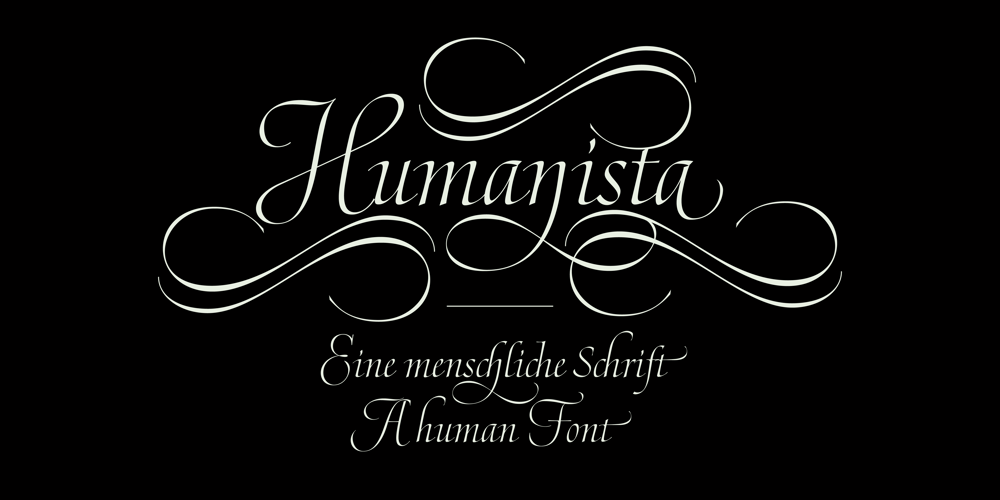
Humanista Font Family was designed by Bertram Kaiser and published by KaiserType. Humanista contains 2 styles and family package options. “Humanista” is the name of a multilingual chancery script font by Bertram Kaiser. The idea in this long-term project was to blend the boundaries between analogue calligraphic handwriting and designing a font digitally, while using all technical possibilities of modern type design. All glyphs were originally written with a broadnib and then carefully vectorized, creating a human charme inside the font. In this design you will find influences from great calligraphy masters like Hermann Zapf or Werner Schneider. The pro version comes along with a big variety of alternate glyphs, initial and terminal forms, swash capitals and ligatures, which gives you the possibility of designing individual text layouts. Inside the font you will also find a set of italic roman capitals plus fitting numerals and interpunction, which can be treated like a font itself. You can activate them through the Open-Type menue (stylistic-set 4) or set manually via the glyphs window (ADOBE applications). When using the feature “swashletters” make sure to also activate the feature “contextual alternates” to get an appealing textdesign with alternating swashletters. This font can be used for display sizes as well as for smaller textsizes like on Invitationcards or in magazines.